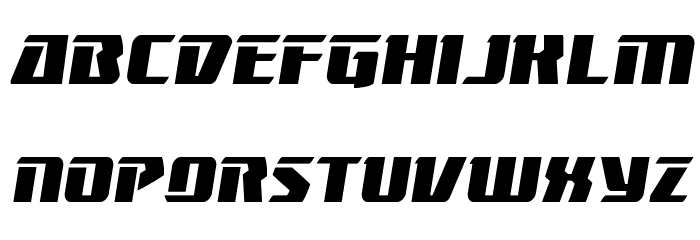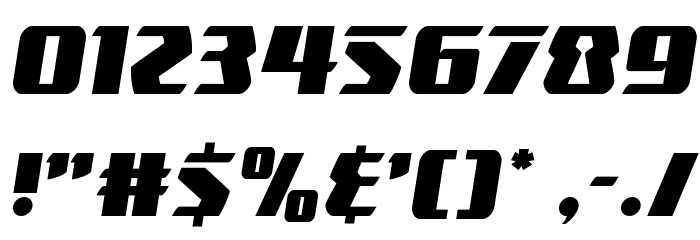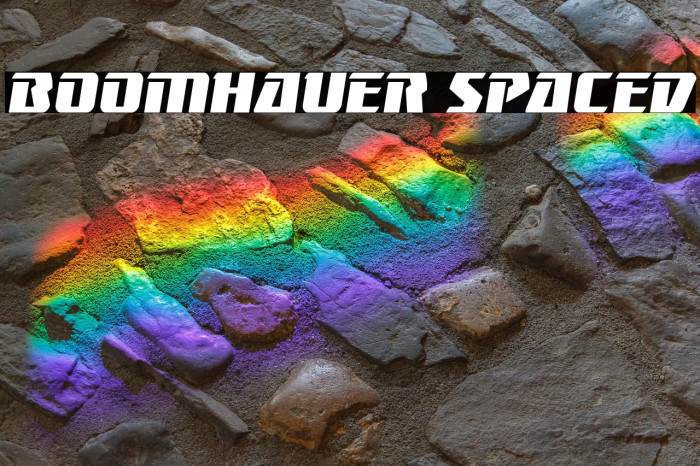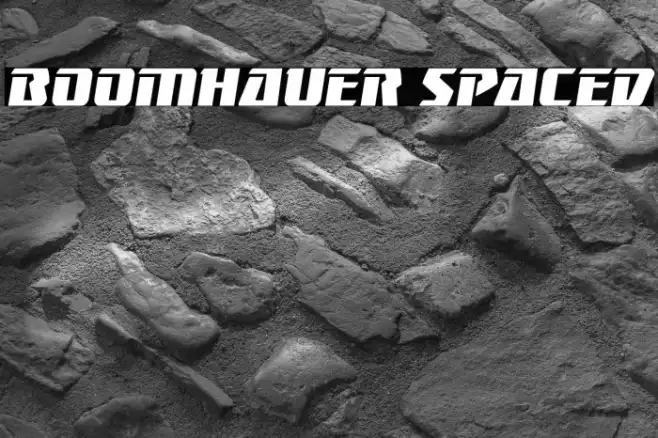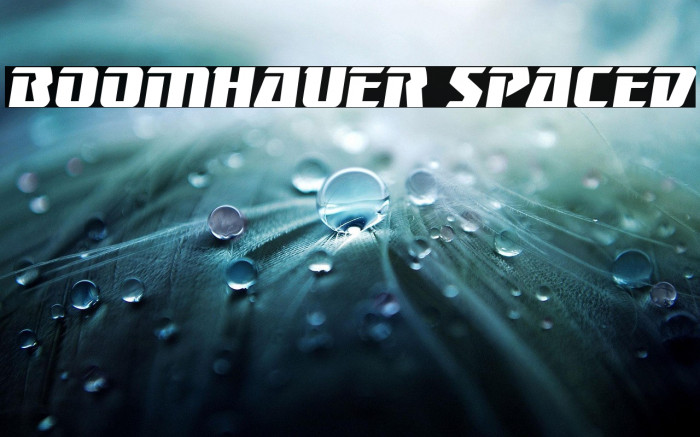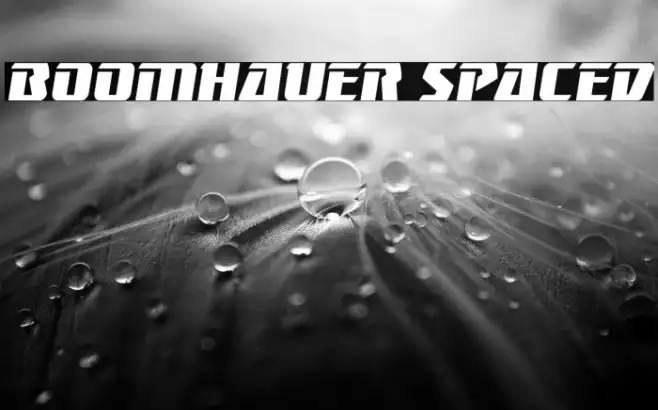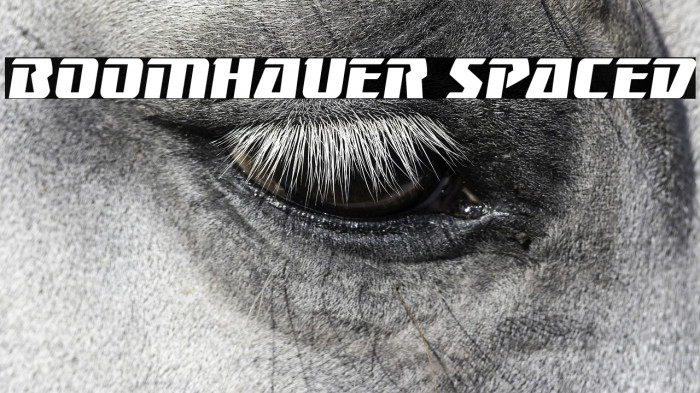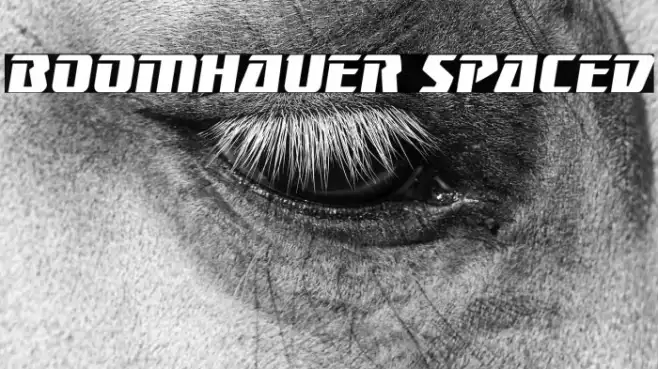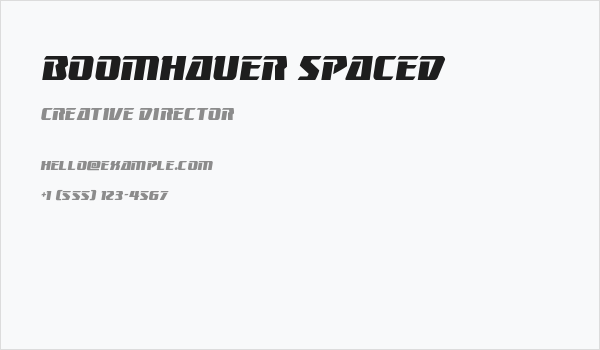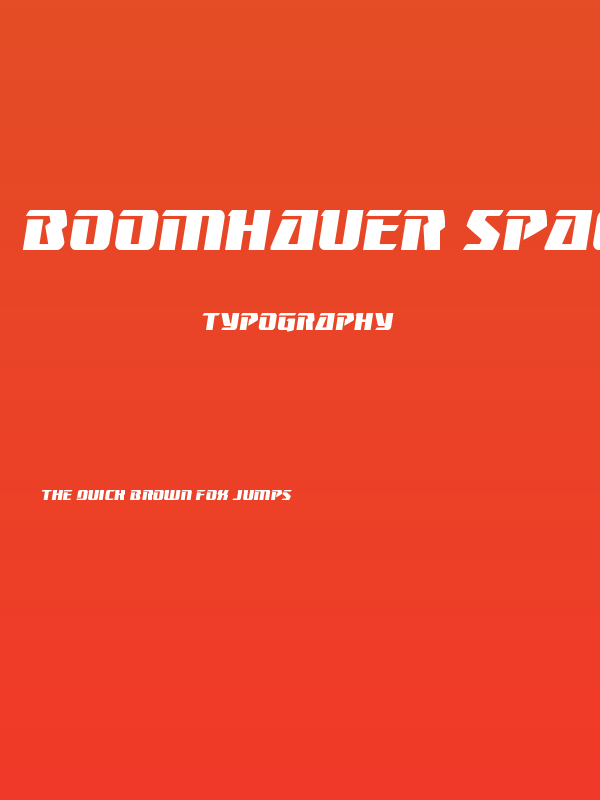
Boomhauer Spaced Font
This font features a bold, angular design with a futuristic and dynamic appearance. The characters are sharply cut with a distinct slant, giving them a sense of motion and energy. The uppercase and lowercase letters maintain a consistent style, with a strong emphasis on geometric shapes. The numbers and special characters follow the same design principles, ensuring uniformity across all glyphs. The overall look is modern and edgy, suitable for projects that require a standout, impactful typeface.
- Font: Boomhauer Spaced
- Proposed Projects: Ideal for sci-fi themed designs, video game graphics, posters, and branding that requires a modern, edgy look.